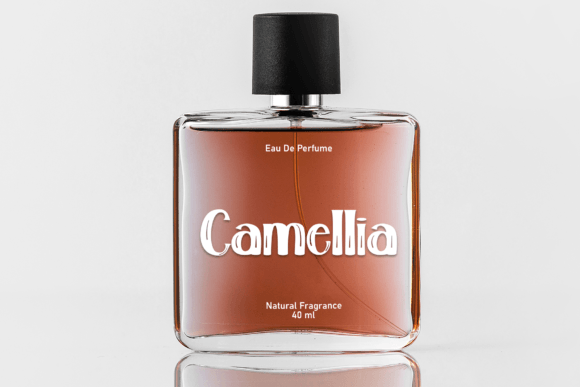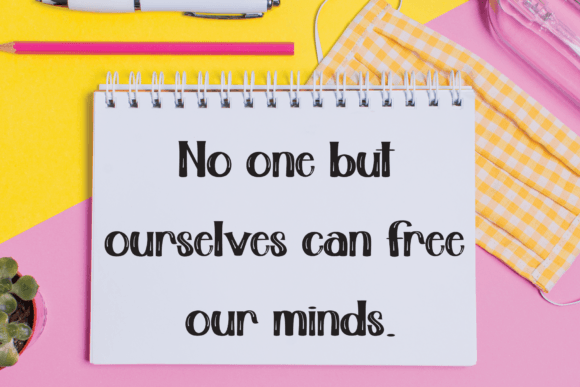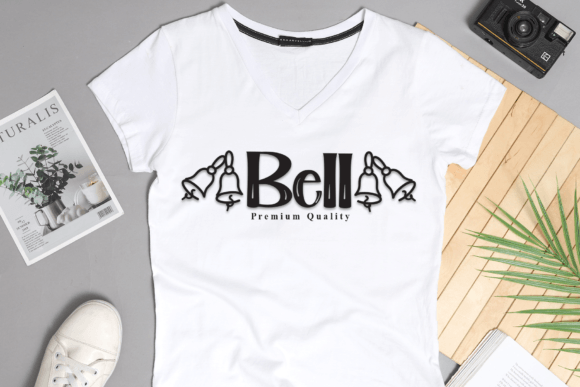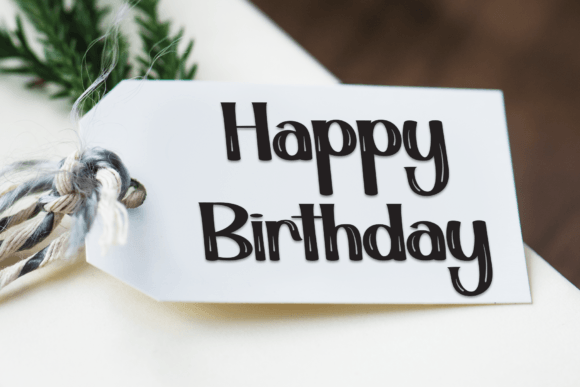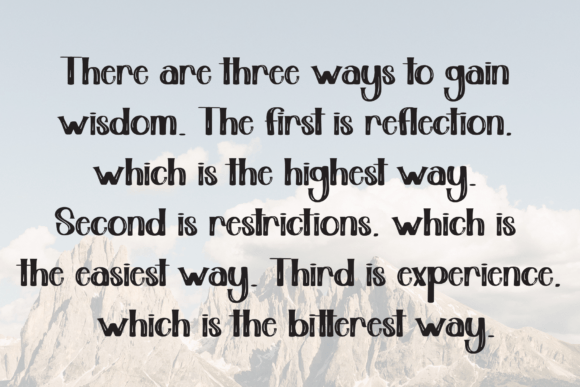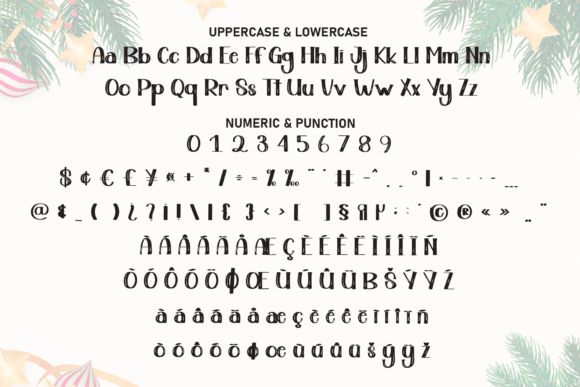
Unwrapping the Magic of Christmas Font
Have you ever stumbled upon the perfect font that instantly transports you to a winter wonderland? For designers, this magical moment is what Christmas Font embodies. As the holiday season approaches, we’re excited to introduce a charming handwritten display font that captures the essence of joy and whimsy.
This delightful font is more than just a design element – it’s a way to add a personal touch to your creations. Whether you’re crafting wedding invitations, heartwarming cards, or any other design project, Christmas Font brings an instant charm that’s hard to resist. As a designer, you’ll appreciate its versatility and the freedom to infuse your work with a dash of festive magic.
Key Features of Christmas Font
- Unique Characteristics: This font features a festive and playful design, with bold lines and intricate details, making it perfect for holiday-themed projects.
- Font Weight: The font has a medium to bold weight, making it suitable for headings and titles, as well as body text.
Review of Christmas Font
Overall, I think Christmas Font is a solid choice for those looking to add some holiday cheer to their designs. ✨ The font is playful, yet still easy to read, making it perfect for titles, headings, and short blocks of text.
One of the things I like most about Christmas Font is its versatility. ✨ It comes in a range of weights and styles, allowing you to customize the look and feel to suit your design. The font also includes a variety of ornaments and decorations, which can be used to add a festive touch to your designs.
- ⚠️ The font may not be suitable for large blocks of text, as it can become difficult to read.
- ⚠️ Some of the ornaments and decorations may be a bit too busy or distracting, depending on the design.
Overall, I think Christmas Font is a great choice for designers looking to add some holiday flair to their work. While it may have some limitations, it’s a fun and versatile font that can add a lot of personality to your designs.
Christmas Font is commonly used for:
- Holiday cards and invitations
- Decorative signs and posters
- Holiday-themed presentations and reports
- Seasonal social media graphics and ads